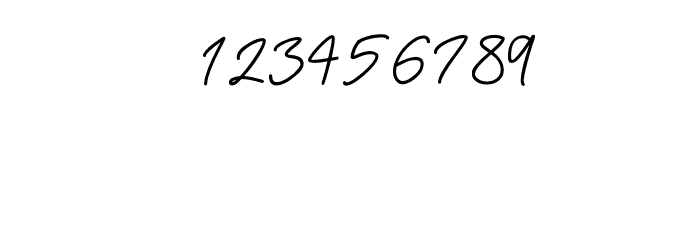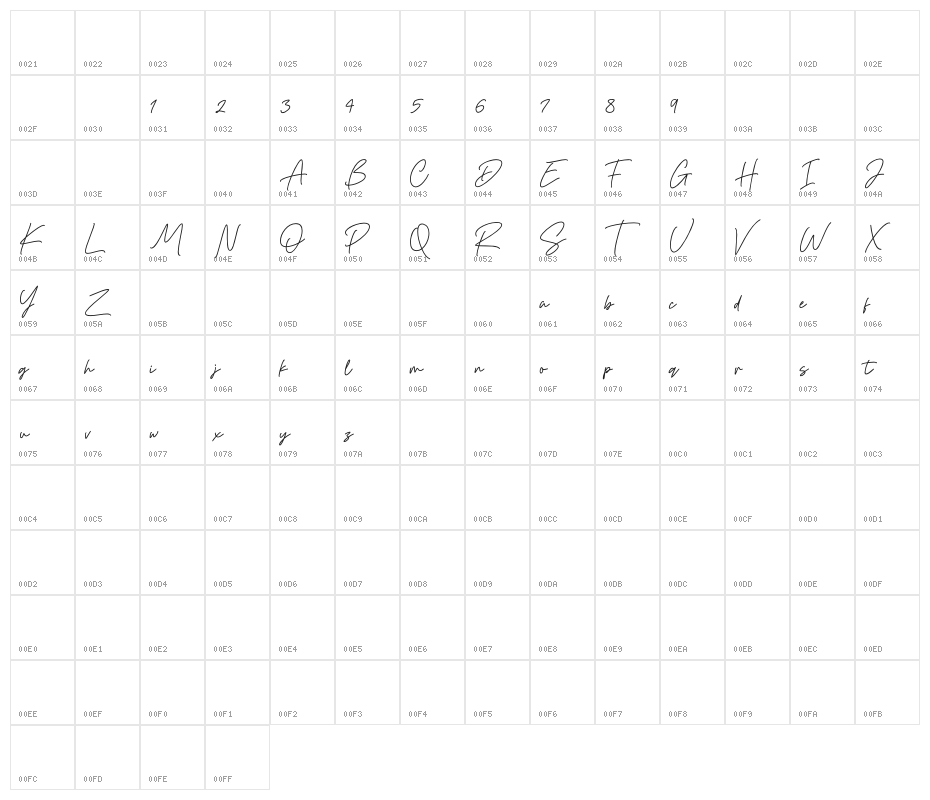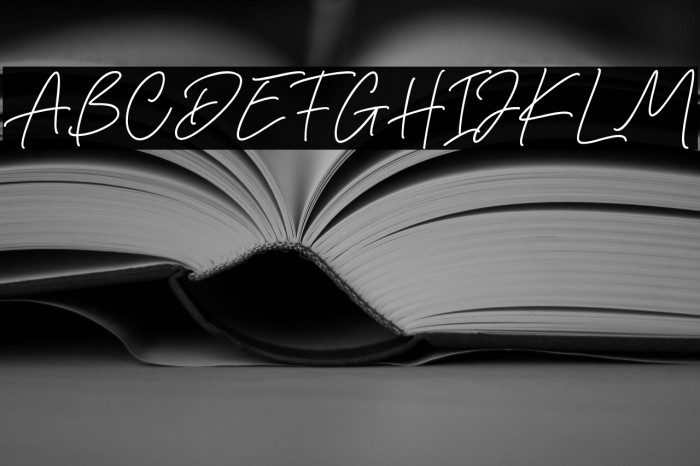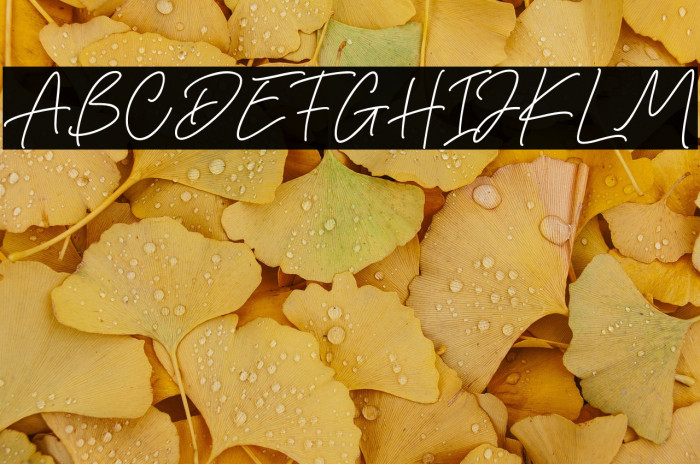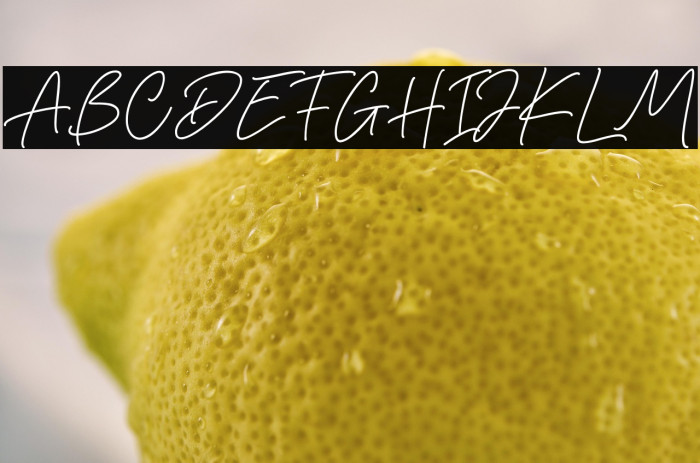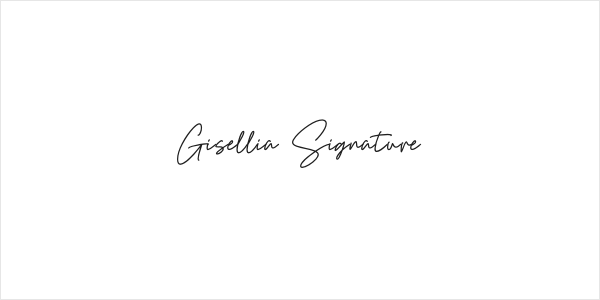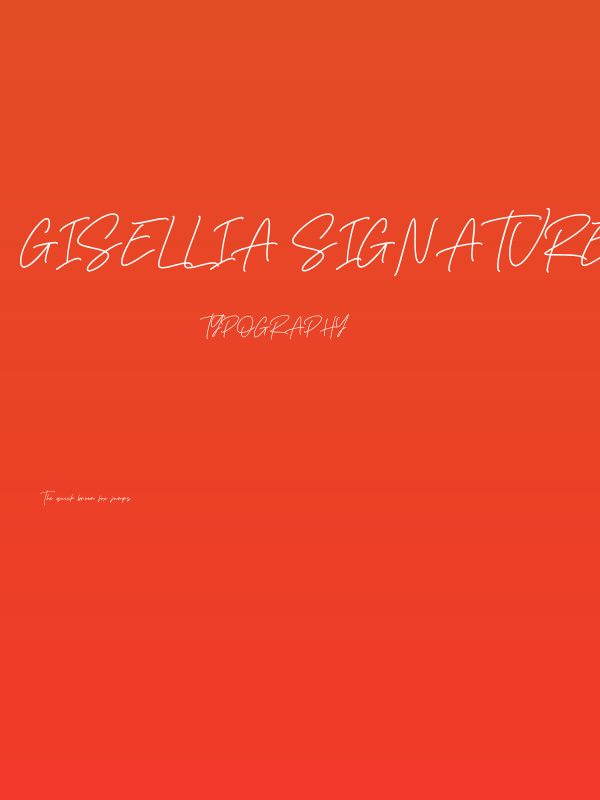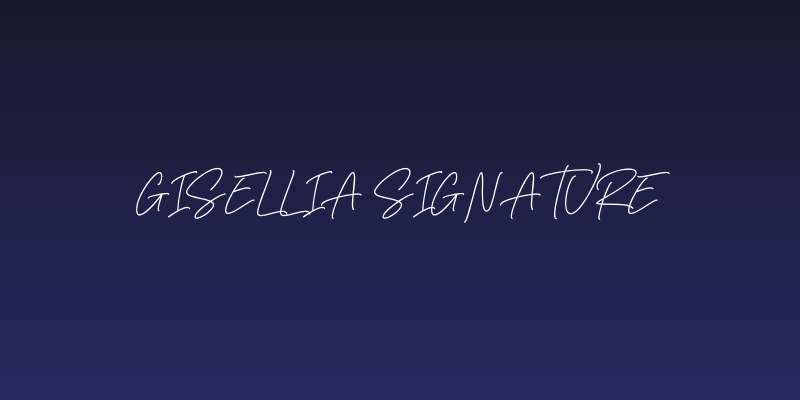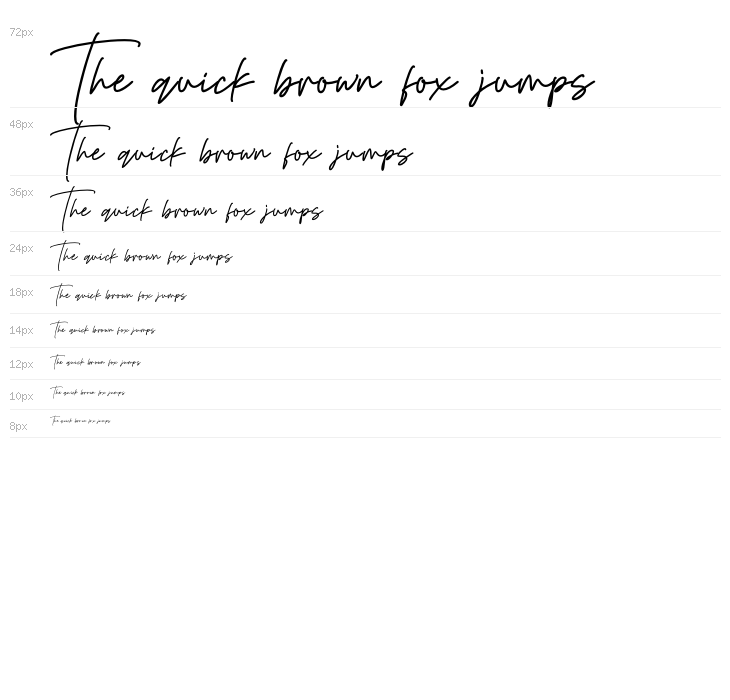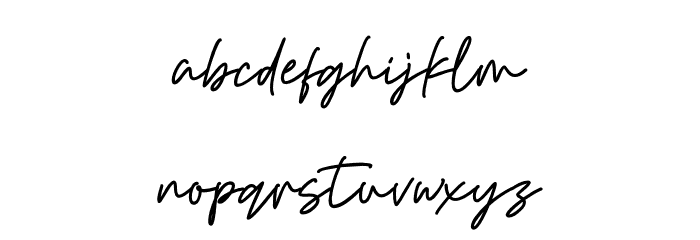
Gisellia Signature Font
Gisellia Signature Description
This font exudes elegance and sophistication with its fluid, cursive style. The letters are connected seamlessly, creating a natural flow that mimics handwriting. The uppercase characters are tall and graceful, while the lowercase letters maintain a consistent rhythm and balance. The numbers are equally stylish, maintaining the same flowing script aesthetic. This font is perfect for adding a personal touch to any design, offering a sense of warmth and personality. Its delicate strokes and smooth curves make it ideal for projects that require a touch of elegance and class.
| Proposed Projects | Ideal for wedding invitations, personal branding, signature logos, and elegant stationery. |